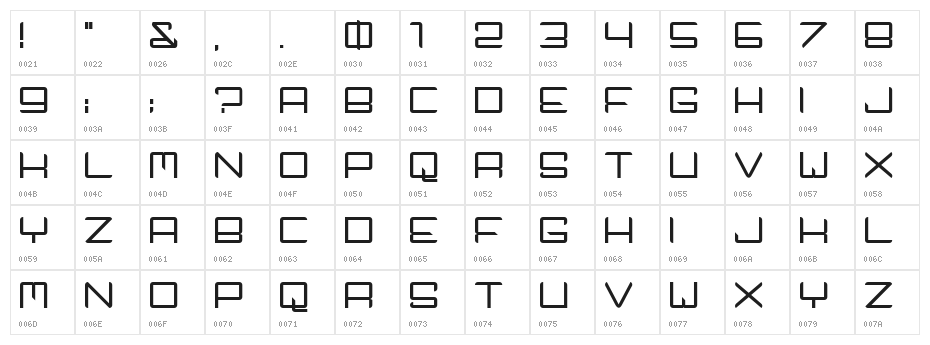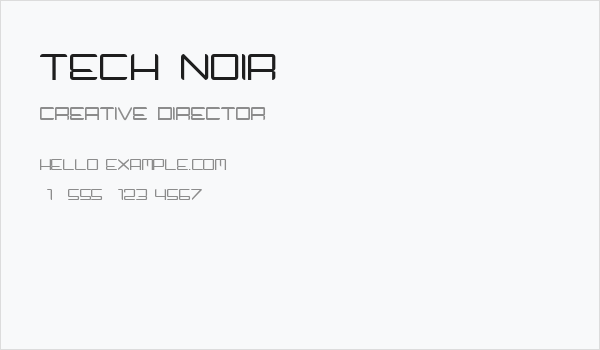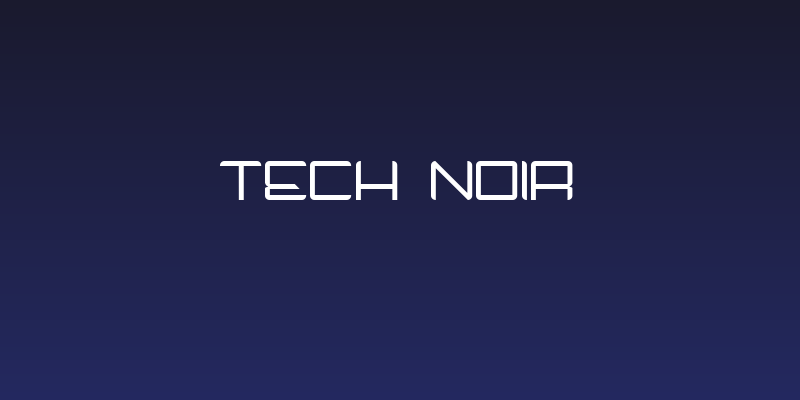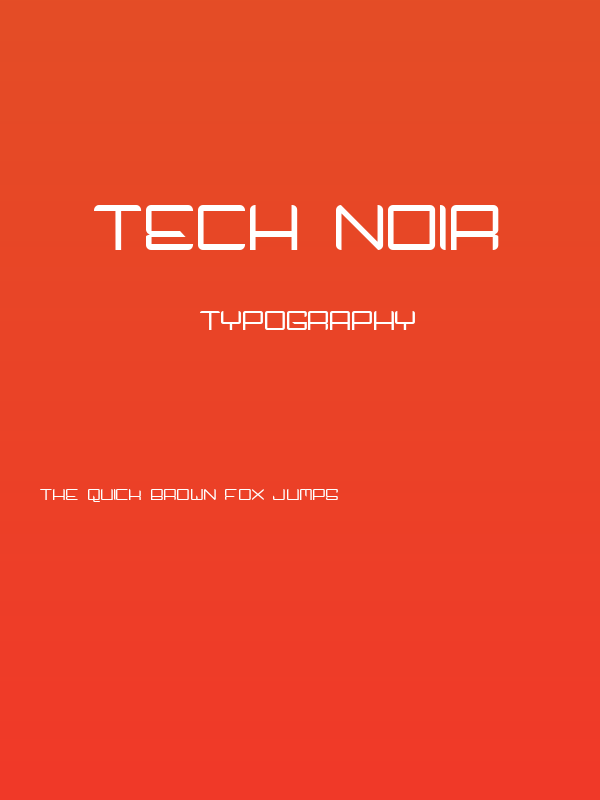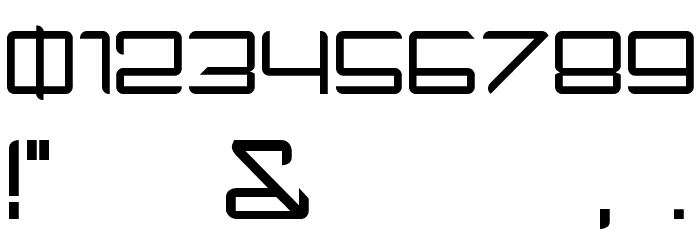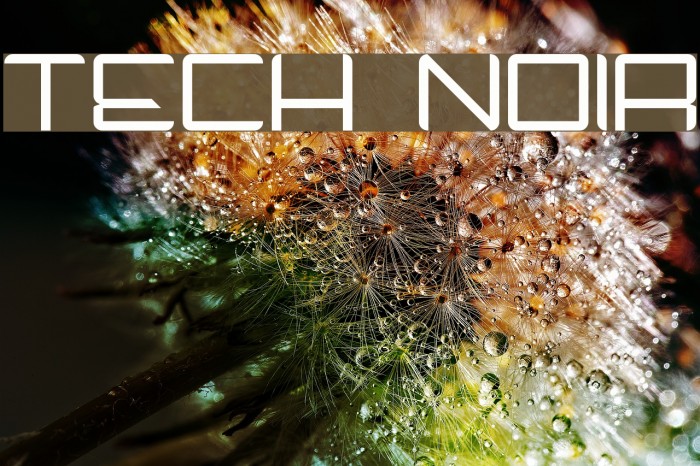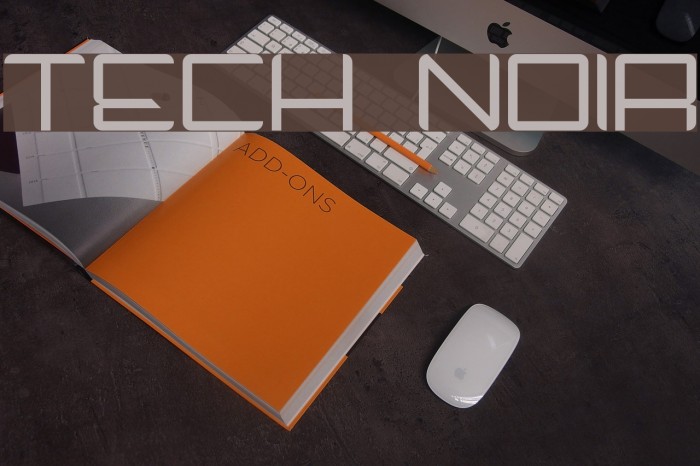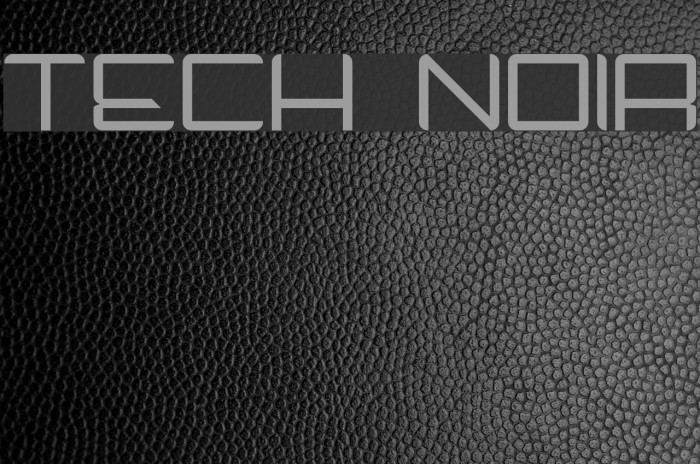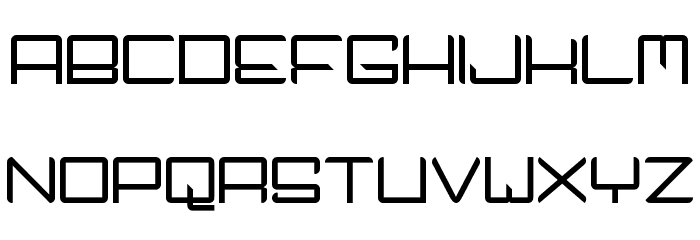
Tech Noir Font
Tech Noir Description
This font embodies a futuristic and technological aesthetic, characterized by its geometric and angular letterforms. The design features a consistent stroke width, giving it a uniform and sleek appearance. The characters are constructed with straight lines and sharp angles, creating a sense of precision and modernity. The font maintains a balanced and clean look, making it suitable for conveying a sense of innovation and forward-thinking. Its unique style is reminiscent of digital displays and cybernetic themes, making it ideal for projects that require a contemporary and cutting-edge feel.